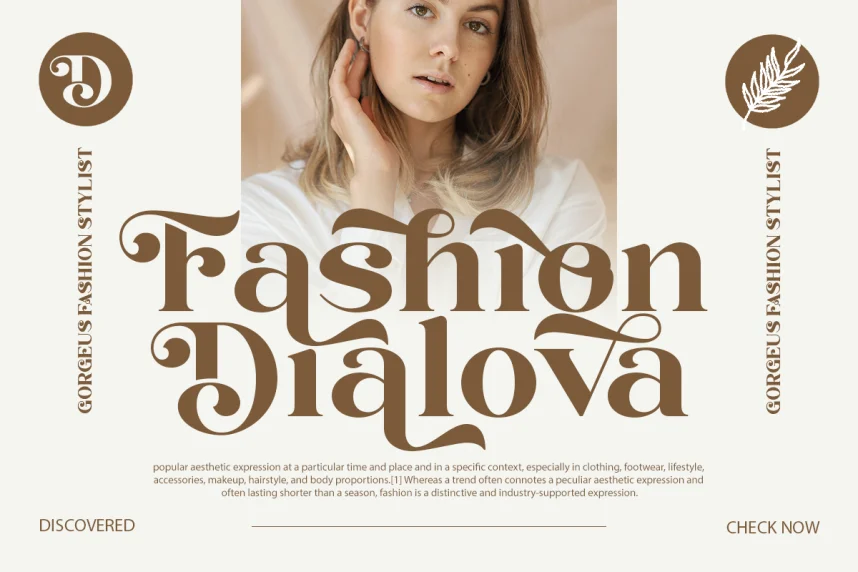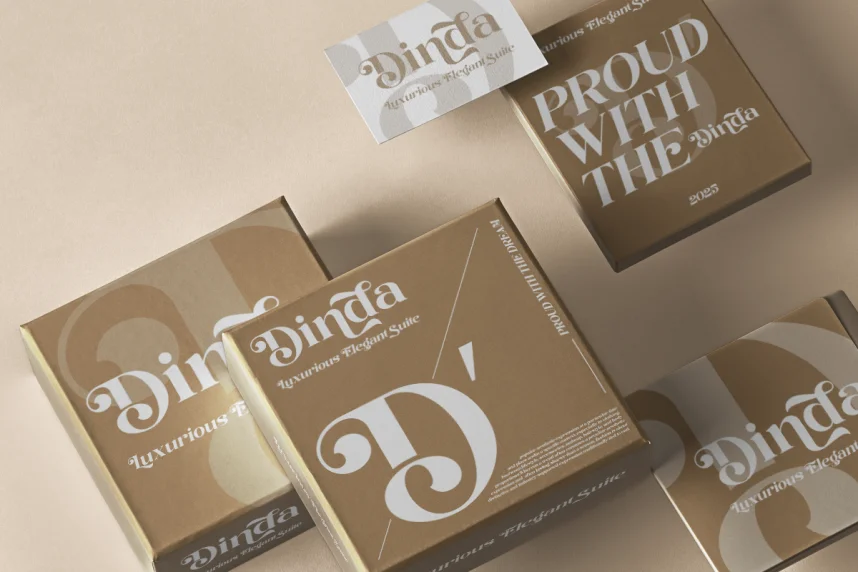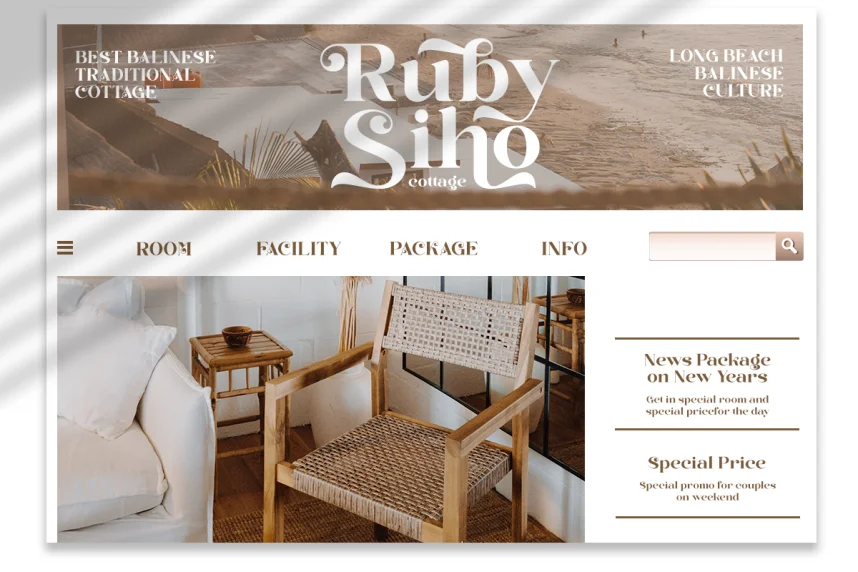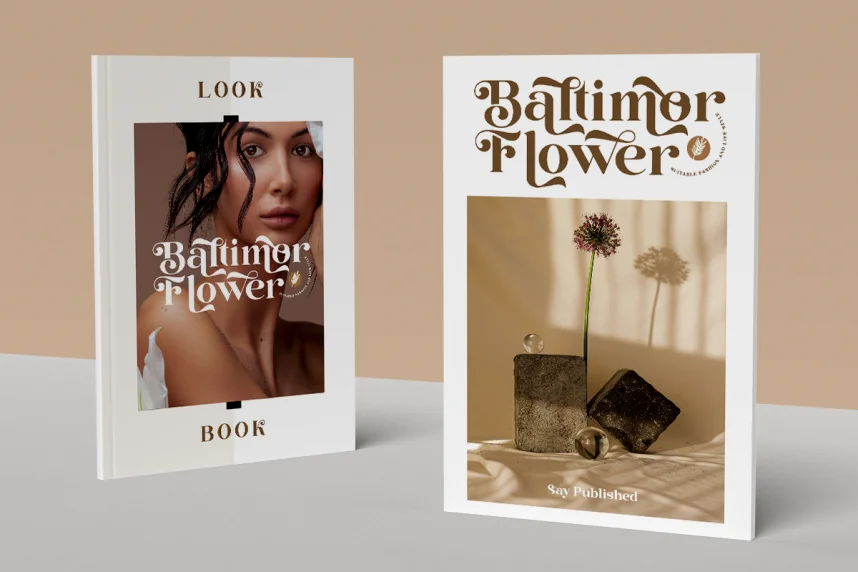
Dilema Figular Font is a handwritten display typeface designed to address readability and personalization challenges in branding, invitations, and digital content. Its natural style allows designers to convey a human touch without compromising clarity.
The font features cursive letterforms with smooth curves, flowing ligatures, and varying stroke thickness. Its playful yet legible design is suitable for headlines, greeting cards, social media visuals, and personal signatures.